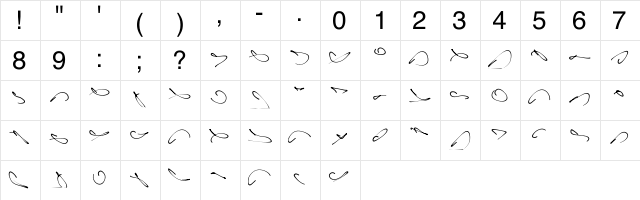
Yonk_Cursive Regular
Design Context for Yonk_Cursive Typeface
Yonk_Cursive flows with the natural rhythm of handwritten lettering, making it ideal for designs that call for warmth and personal expression.
Font Pairing: Combine Yonk_Cursive with a simple geometric sans for maximum contrast — the tension between flowing curves and clean structure is a classic typographic pairing.
Pro Tip: Pair Yonk_Cursive with a clean sans-serif for supporting text. The contrast between fluid script and geometric structure creates an elegant typographic hierarchy.